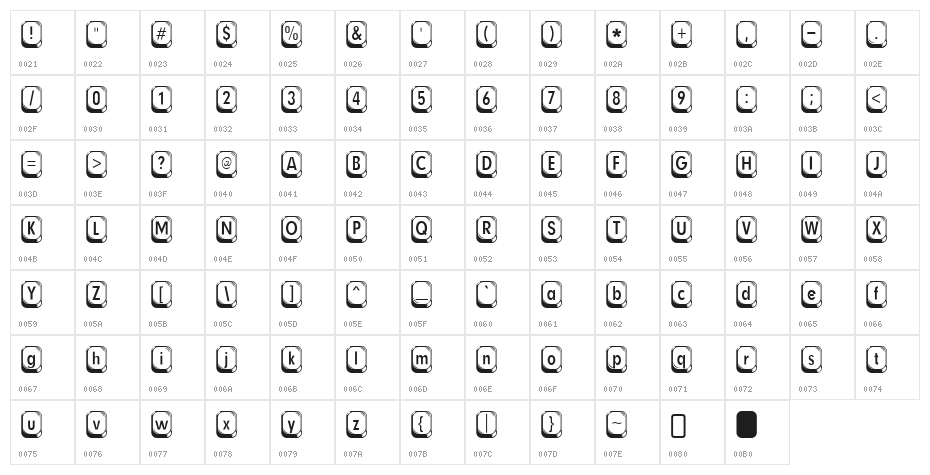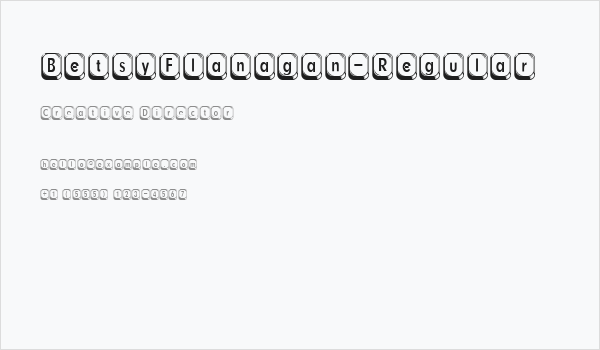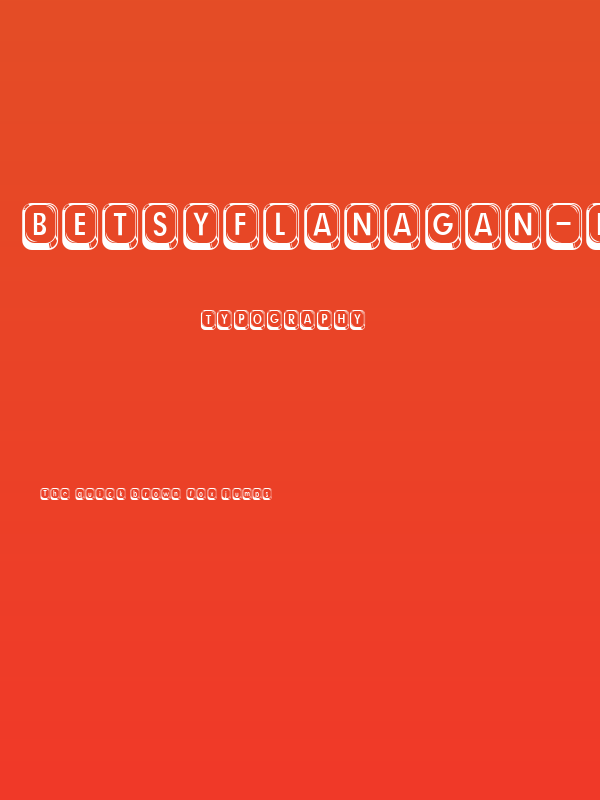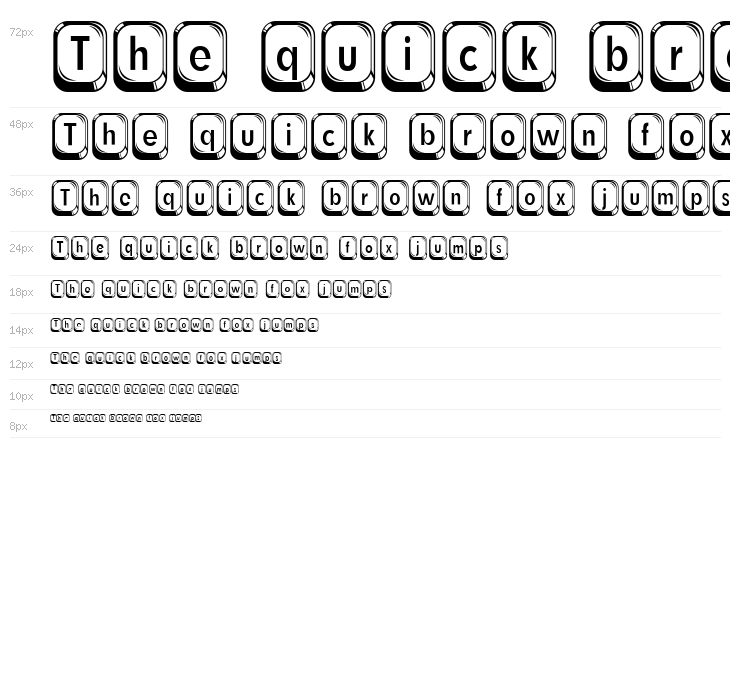
BetsyFlanagan-Regular Font
BetsyFlanagan-Regular Description
This font features a bold, three-dimensional style with each character enclosed in a rounded square, giving it a distinct, retro appearance. The letters are sans-serif, with clean lines and a uniform thickness that contributes to its modern yet playful aesthetic. The shadow effect adds depth, making the characters stand out prominently. The font includes a full set of uppercase and lowercase letters, numbers, and a variety of special characters, all maintaining the same unique boxed design. This consistent style across all characters ensures a cohesive look, ideal for eye-catching designs.
| Overall Style | Retro, Playful |
| Proposed Projects | Ideal for vintage-themed posters, retro branding, playful logos, and eye-catching headlines. |